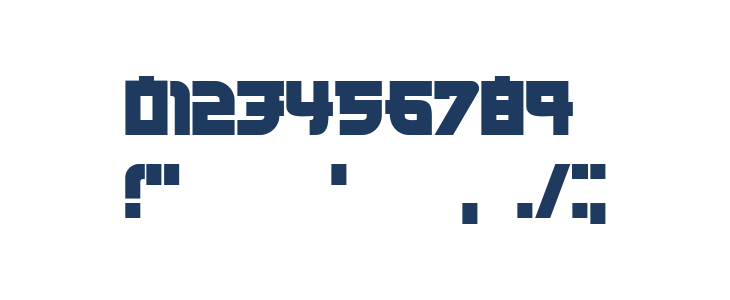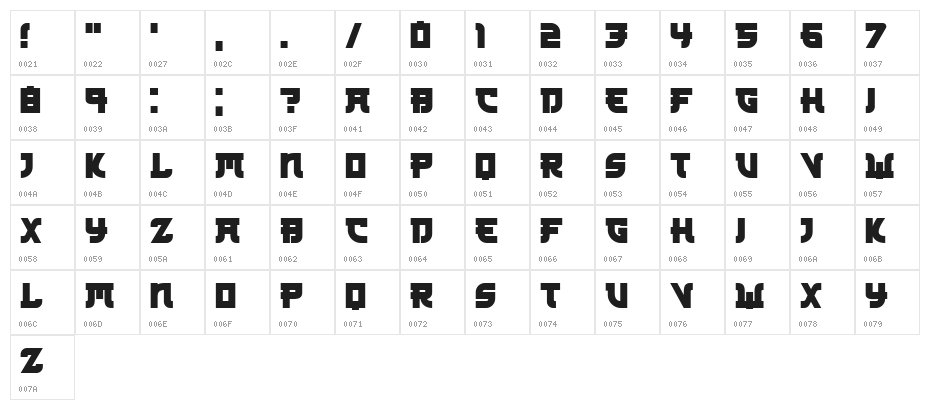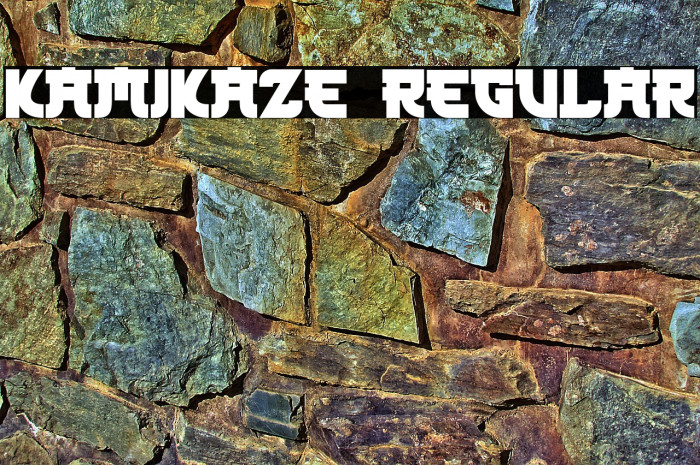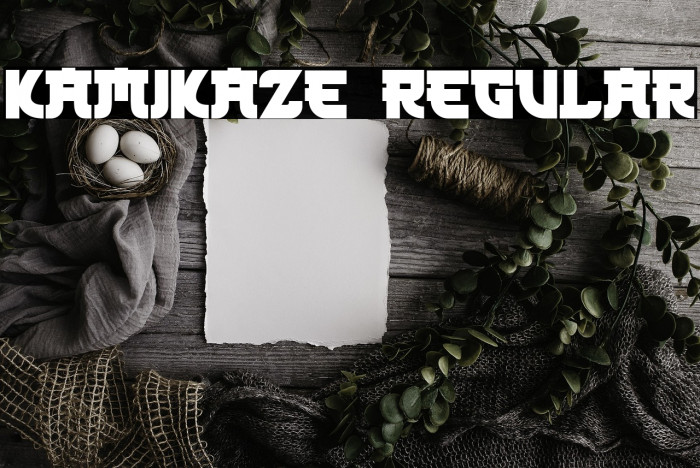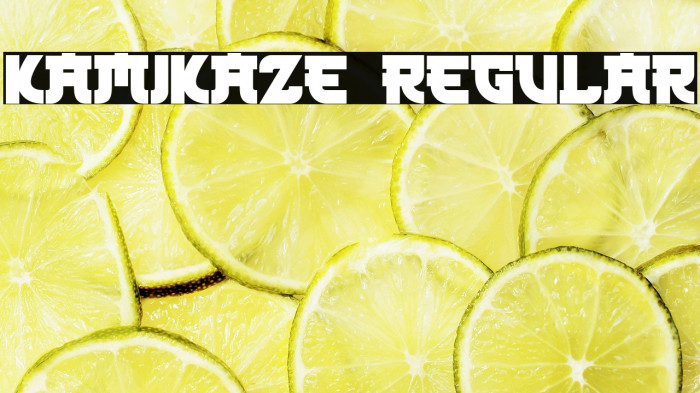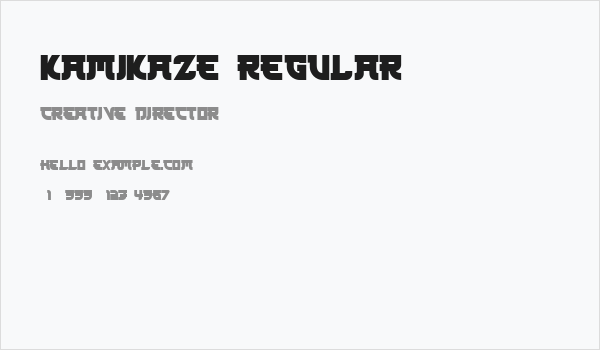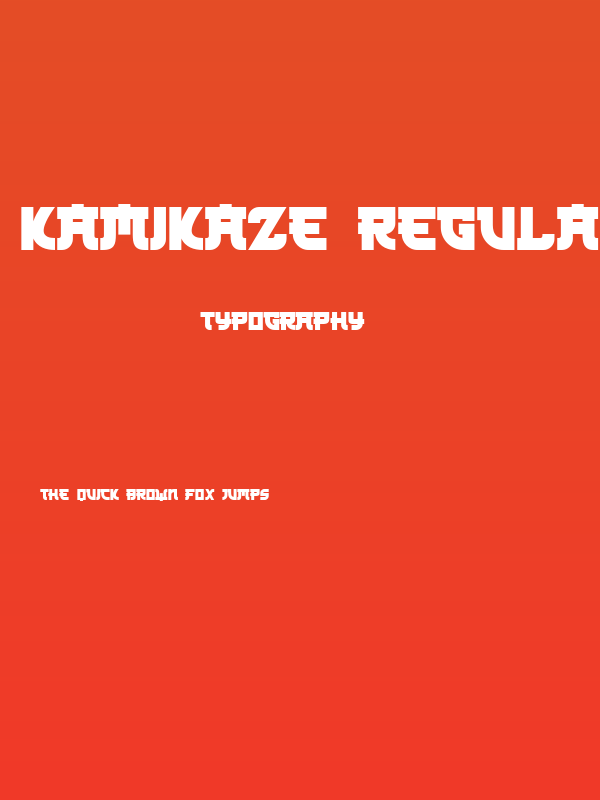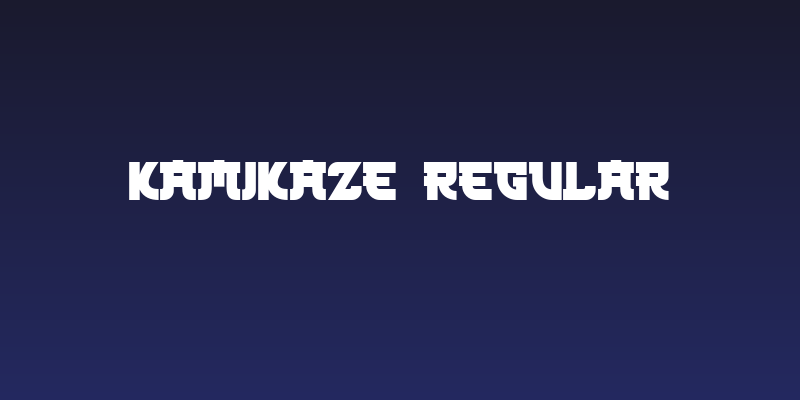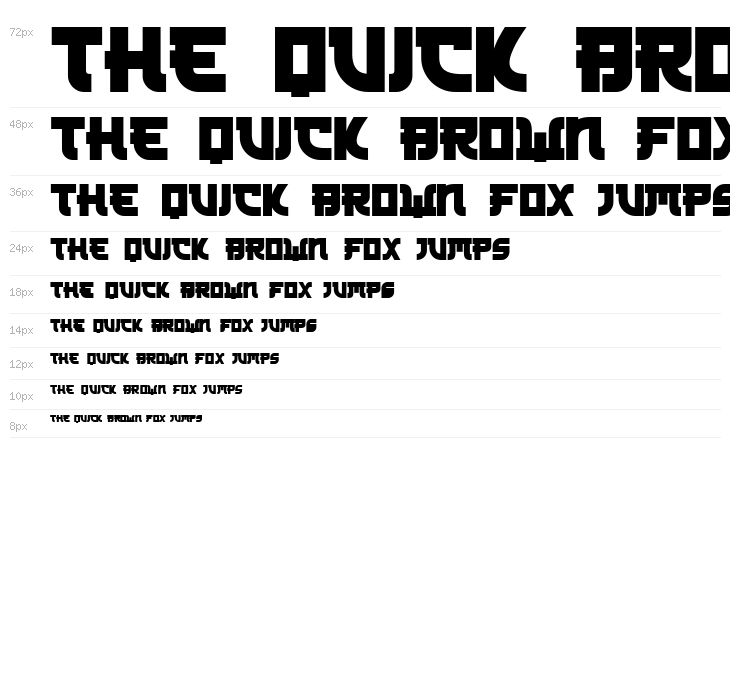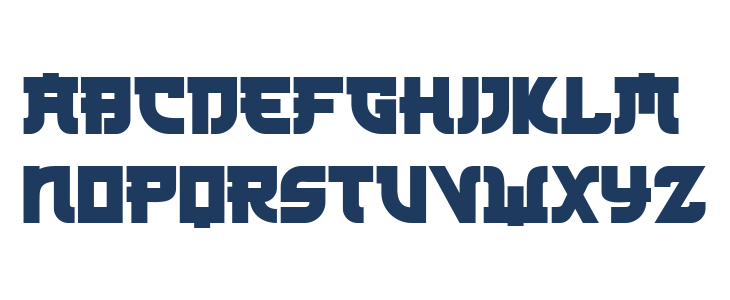
Kamikaze Regular Font
Kamikaze Regular Description
This font features a bold and striking design with a distinctly modern and geometric style. The characters are constructed with thick, block-like strokes that create a sense of strength and stability. The angular shapes and sharp edges give it a futuristic and industrial feel, making it stand out in any design. The uppercase and lowercase letters maintain a consistent weight, contributing to a cohesive look. The numerals and special characters are designed to match the boldness of the alphabet, ensuring uniformity across all text elements.